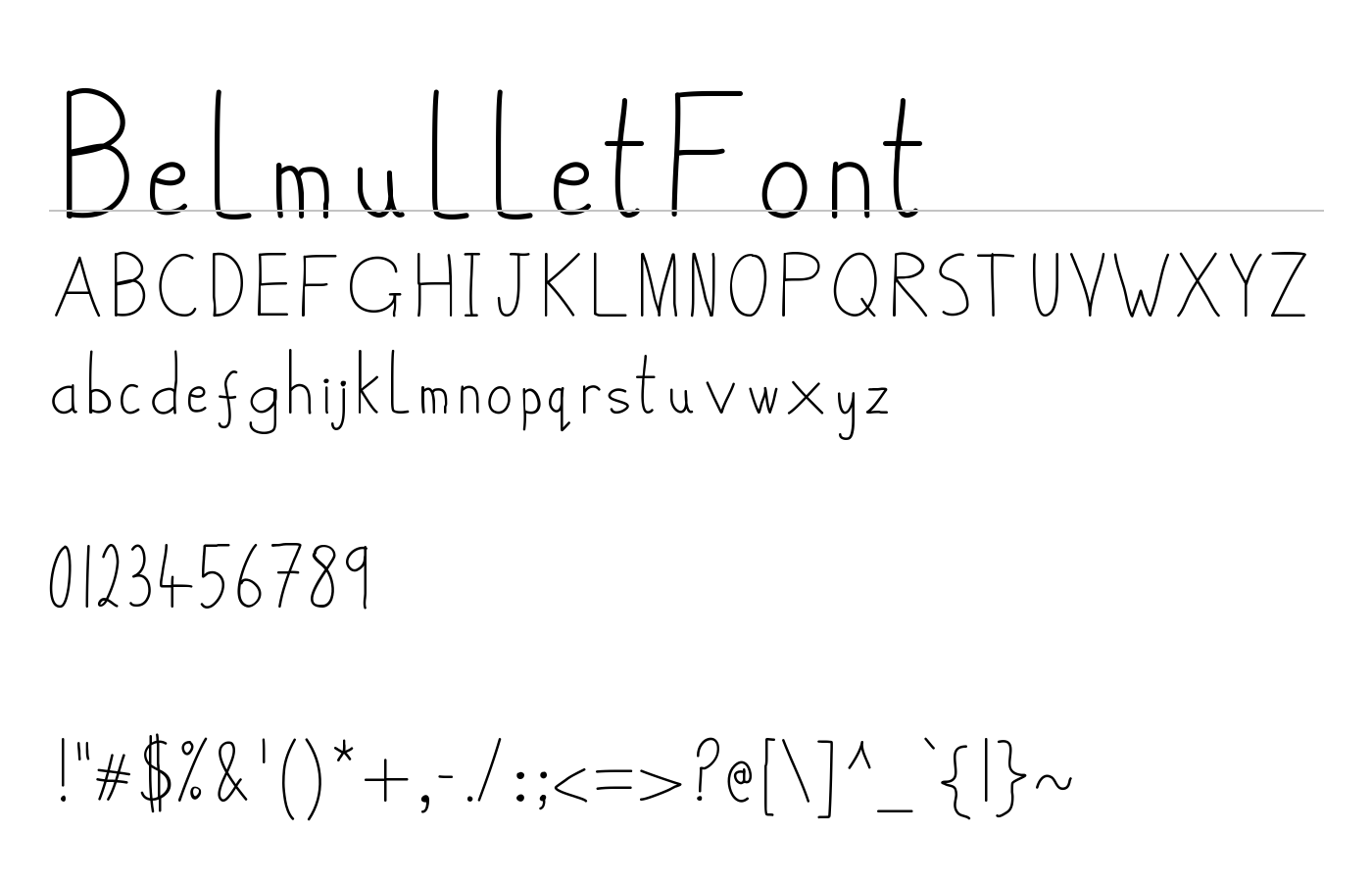
BelmulletFont is a playful and delicate sans serif with a hand-drawn feel, characterized by its tall, narrow letterforms and subtle irregularities that give it charm and personality. Its light weight and open spacing make it ideal for creative projects needing a friendly, informal touch. This font works well for children’s materials, casual branding, or whimsical headlines where a warm, approachable look is desired.
BelmulletFont
About BelmulletFont